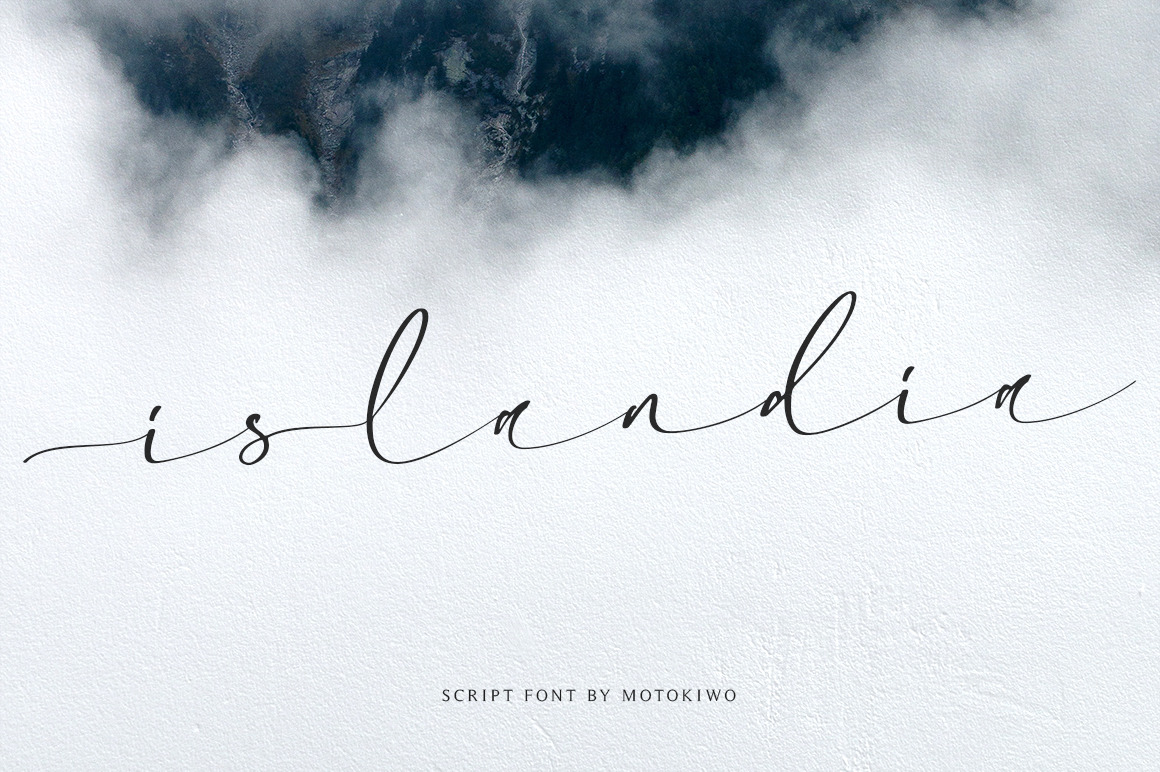
Islandia - Modern Font
Islandia is simple script font with wide characters. It's relaxing font and easy to use, you don't need any design software to access all characters. Islandia doesn't have uppercase, the uppercase replaced with lowercase that contains tails or swash in the front.
Standard multilingual characters, numeral and punctuation included.